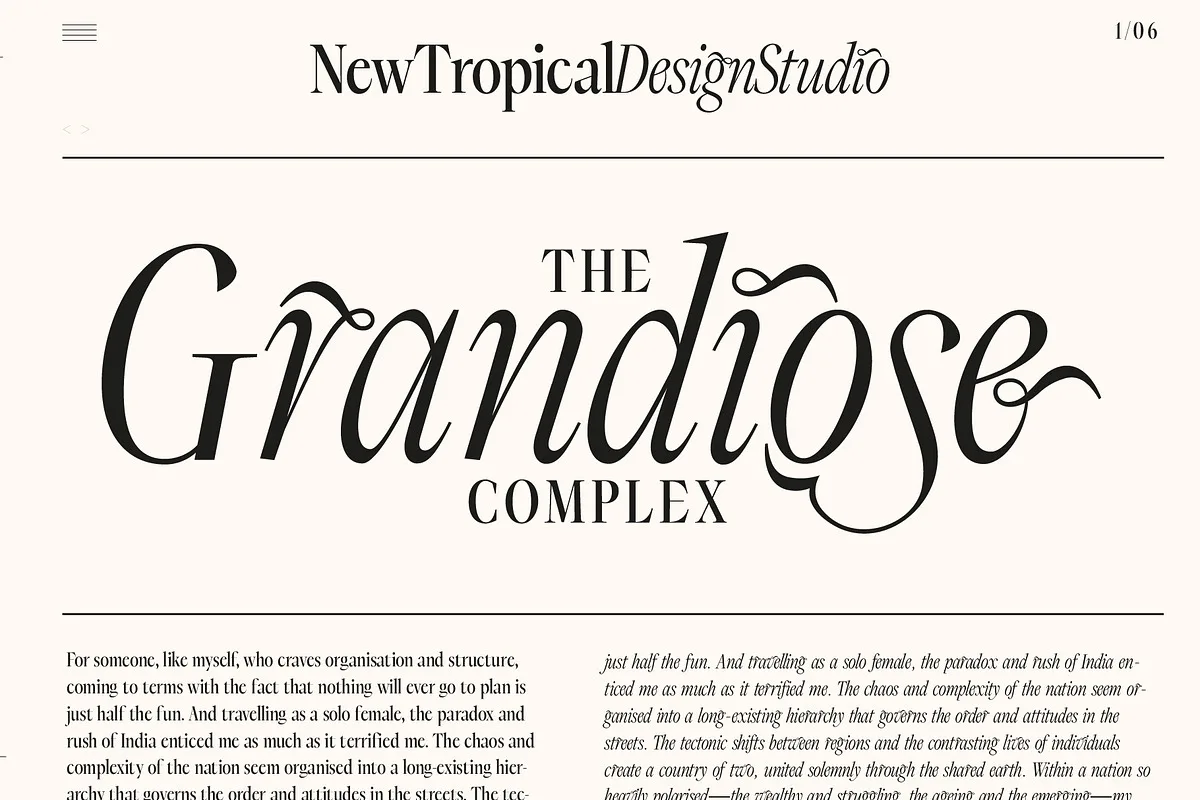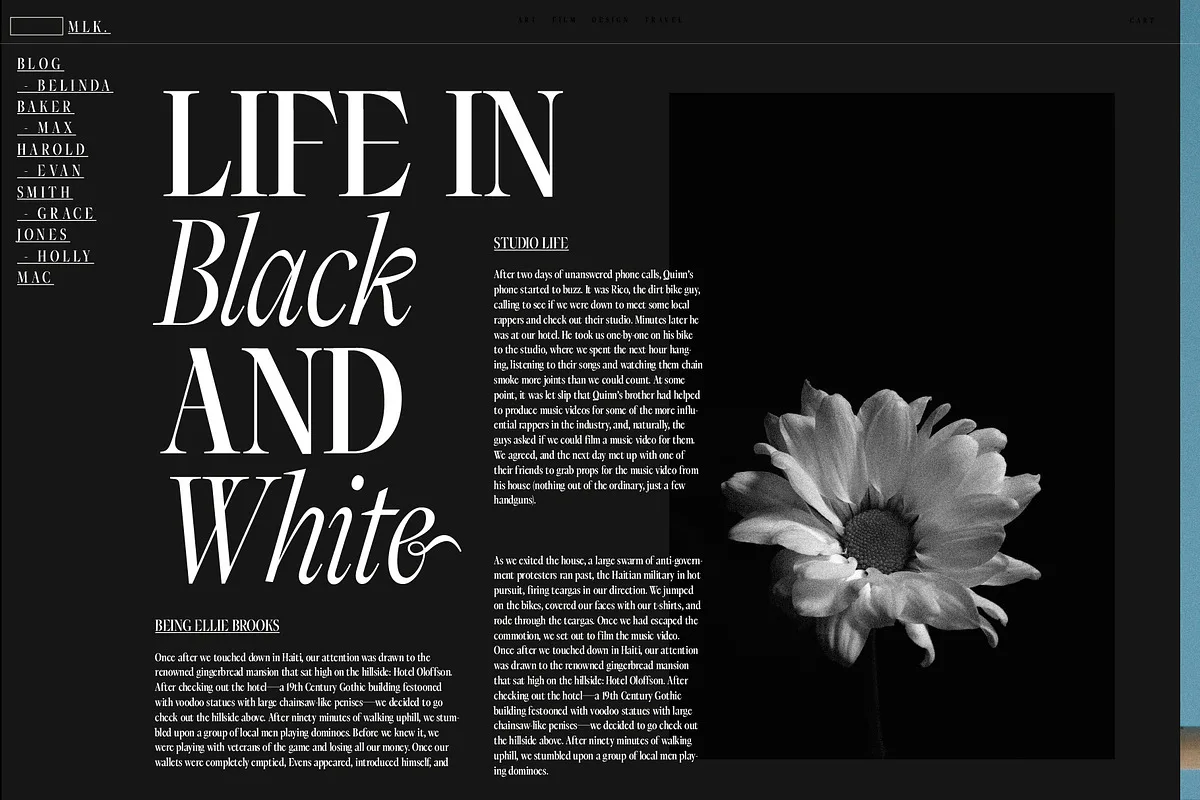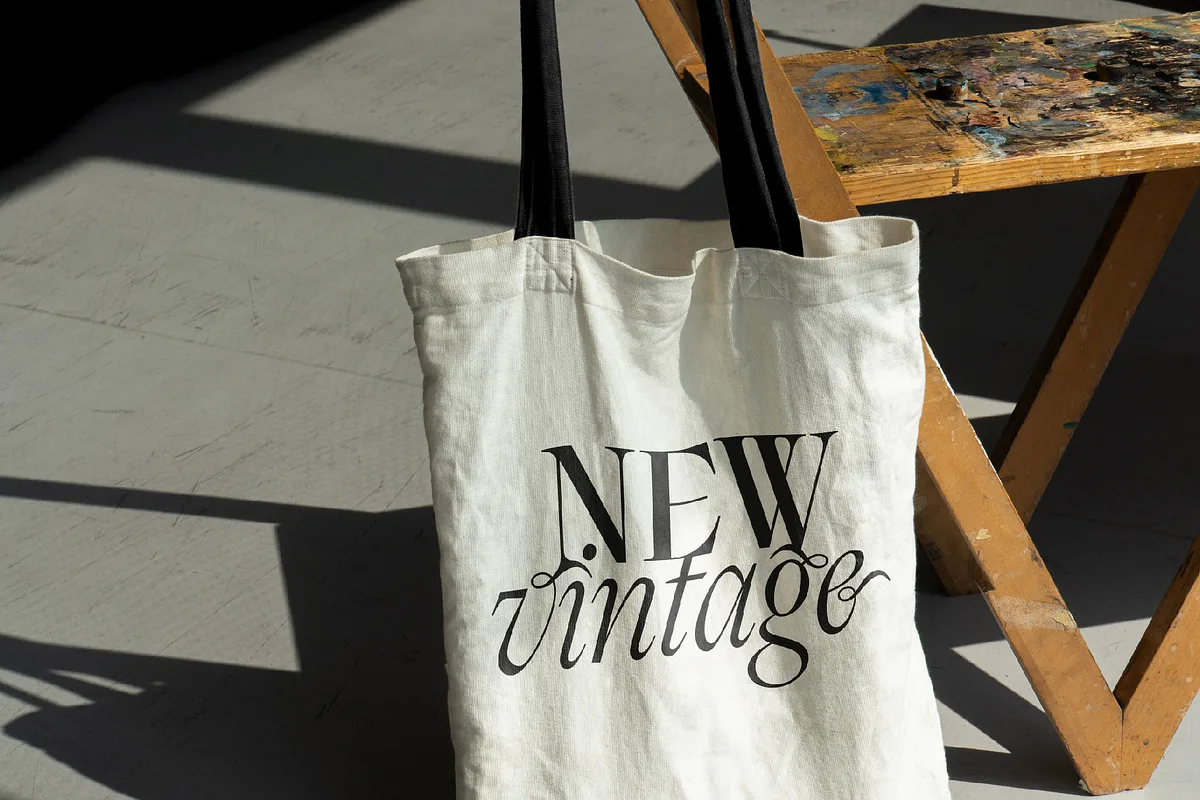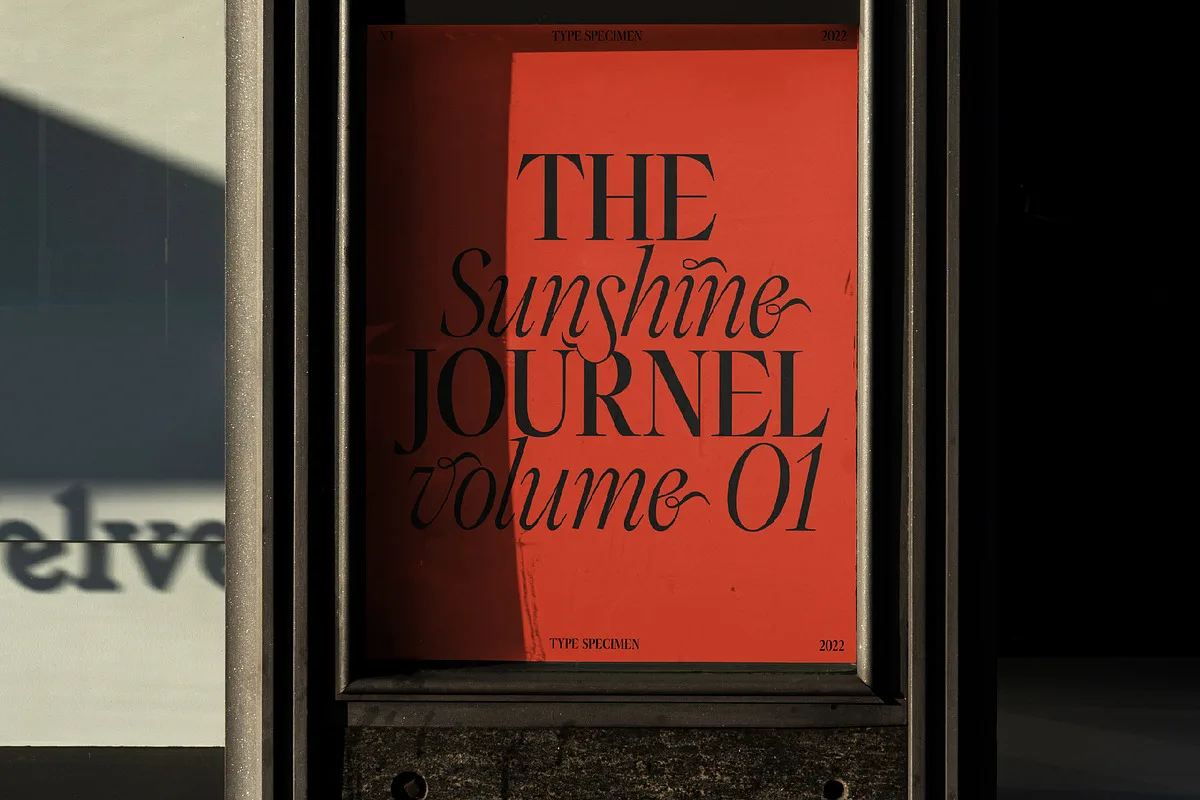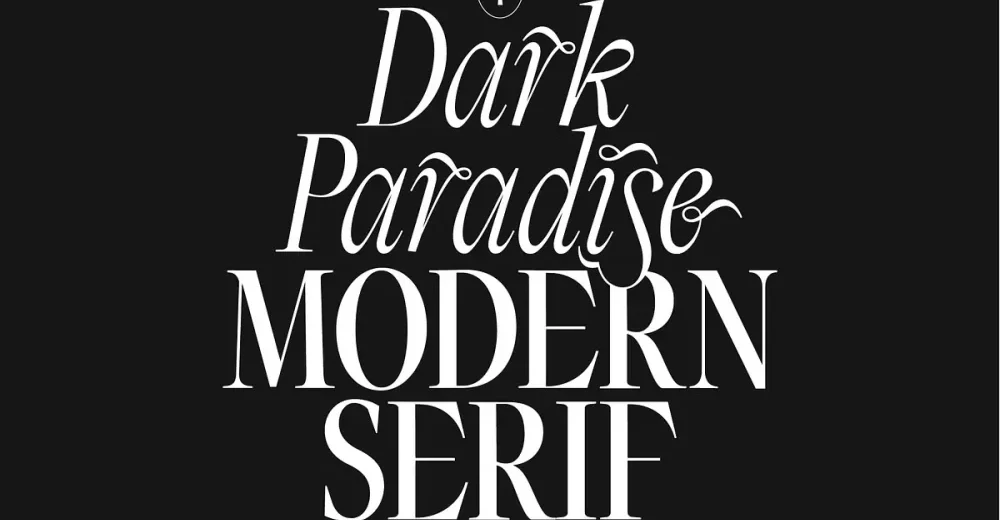
Dark Paradise is a modern serif typeface. A strong edgy serif contrasts with an elaborate ornate italic case to create a beautiful typographic juxtaposition. The ornate italic case has many additional alternatives to create unique designs.
Perfect for logo design, business cards, clothing branding, product packaging, magazine headlines, website design views or just as text overlay for any background image or for editorial projects.
- Uppercase, lowercase, numbers, punctuation
- Full italic case with ornate alternates
- Multilingual support